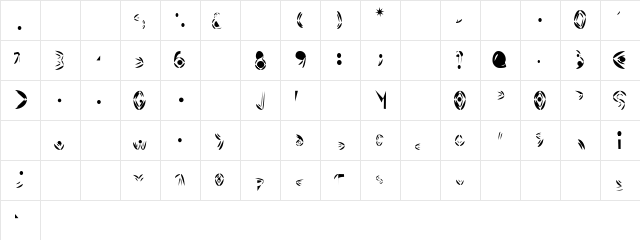
Fat Cyan Regular
Design Context for Fat Cyan Typeface
Fat Cyan is a composed and adaptable typeface that performs quietly and consistently across a wide range of design contexts.